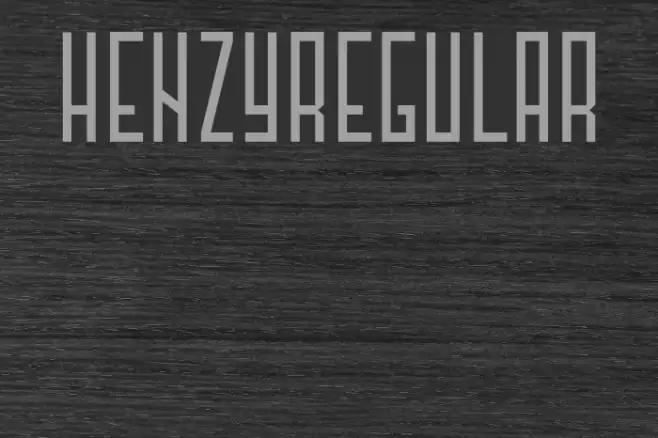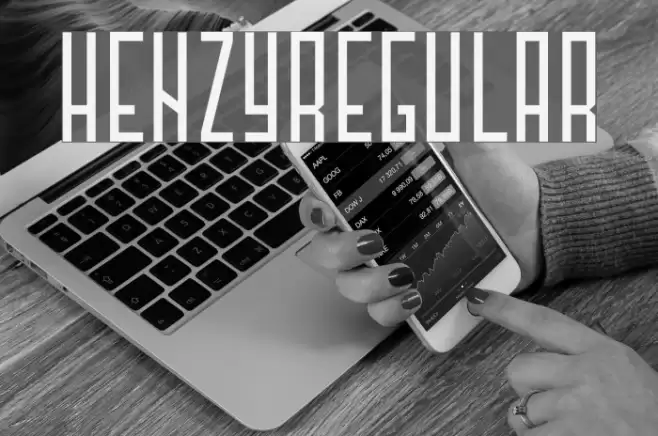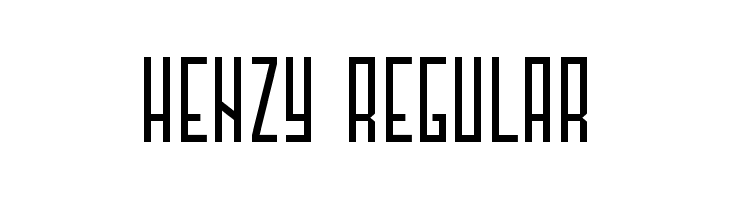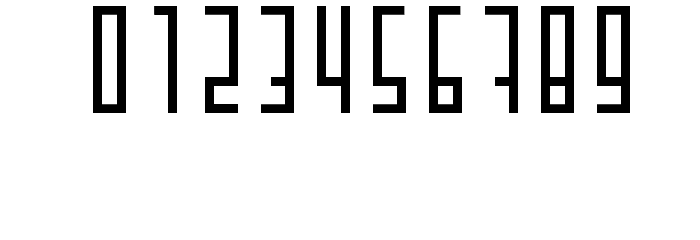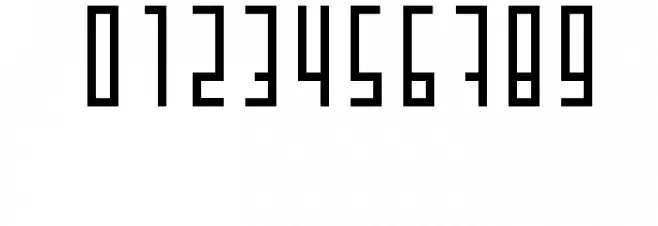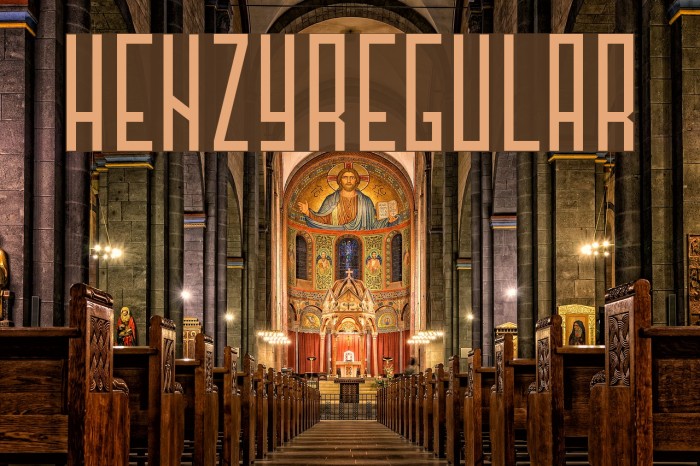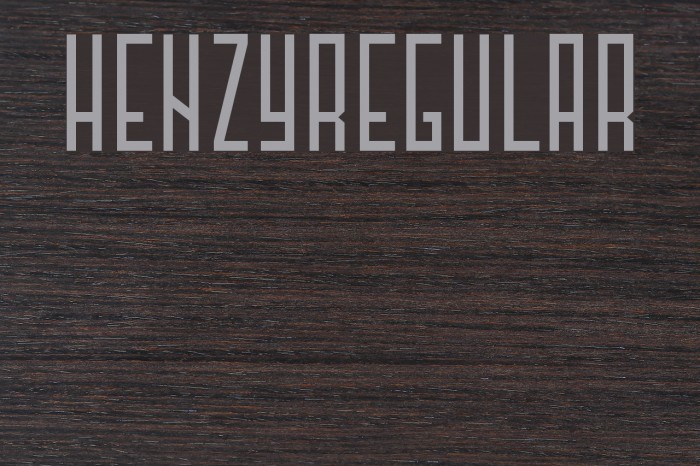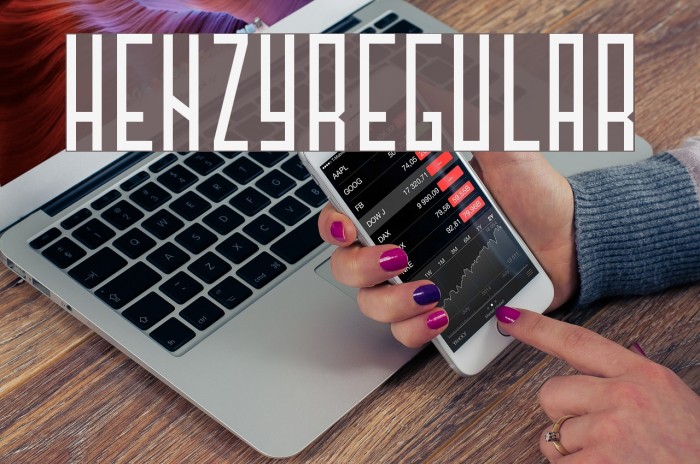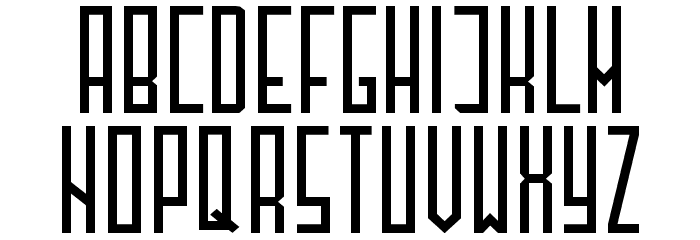
Henzy-Regular Font
Henzy-Regular Description
This font features a geometric and angular design, characterized by its tall, narrow letterforms and consistent stroke width. The uppercase letters exhibit a strong vertical emphasis, with sharp corners and a modern, architectural feel. The numerals and special characters maintain the same structural integrity, offering a cohesive look across all characters. The font's clean lines and lack of curves give it a distinctly contemporary appearance, making it suitable for projects that require a bold and striking visual impact.
A geometric, angular font with tall, narrow letterforms and consistent stroke width from Futuristic fonts.
- Proposed Projects: Ideal for branding, posters, headlines, and any project requiring a modern, architectural aesthetic.